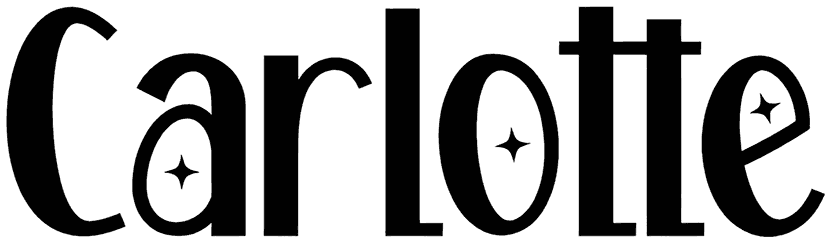
Carlotte Font
Carlotte is a blend of elegance and contrast that look really fascinating on a wide set of graphic content ranging from illustrations, posters, book covers, and magazines, to the user interface of applications.
Since one part of its character is bold and the other side is thin, this 50s font can easily attract the attention of the audience by sharing a sense of dreaminess, playfulness, dynamic, or friendliness.